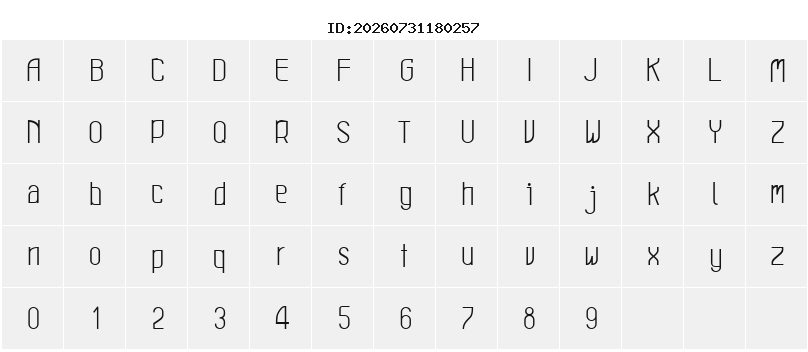
Leicht Preview
• Font Name: Leicht
• Font Style: bold
• Font ID: DEC : Leicht light: 2009
• Full Font Name: Leicht bold
• Version: Version 1.000 2009 initial release
• PostScript Name: Leicht-bold
• Character Count: 388
• Designer: Euamrittee Jeerawatthanakaset
About Leicht.ttf
Leicht.ttf is a modern, elegant sans-serif font designed for ultimate readability and visual harmony. Perfect for branding, headlines, web design, and print materials.